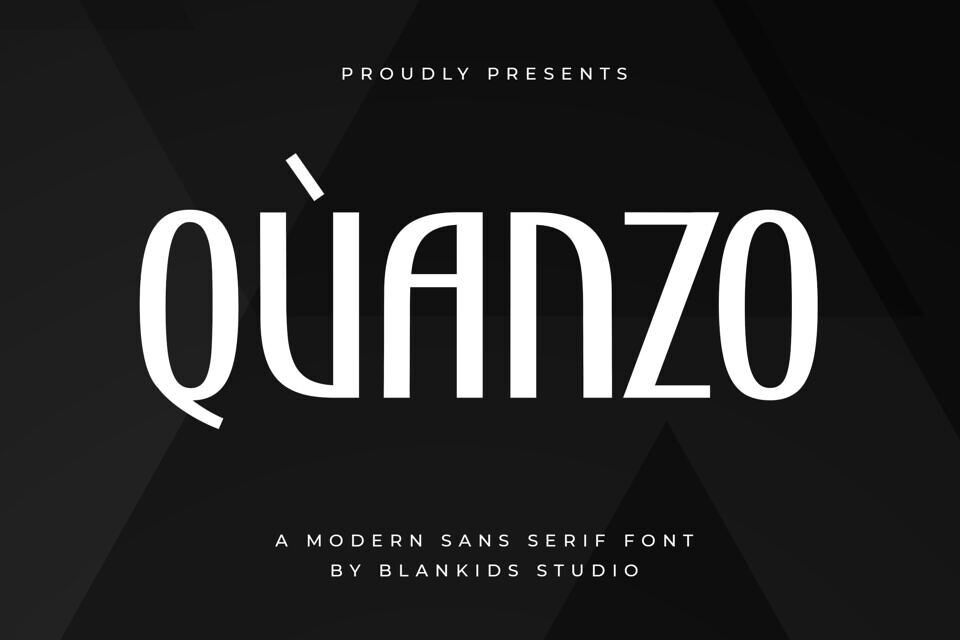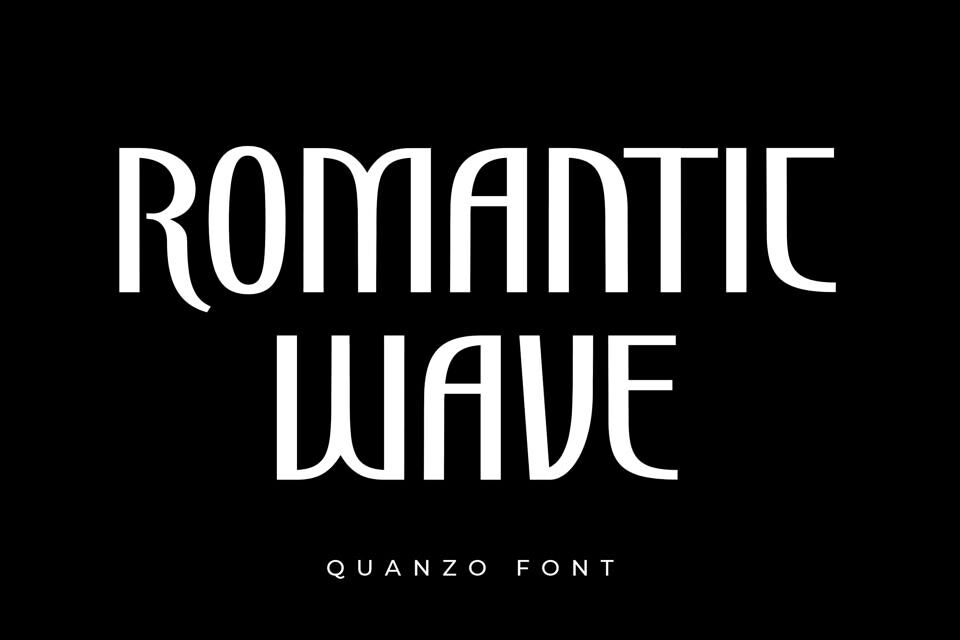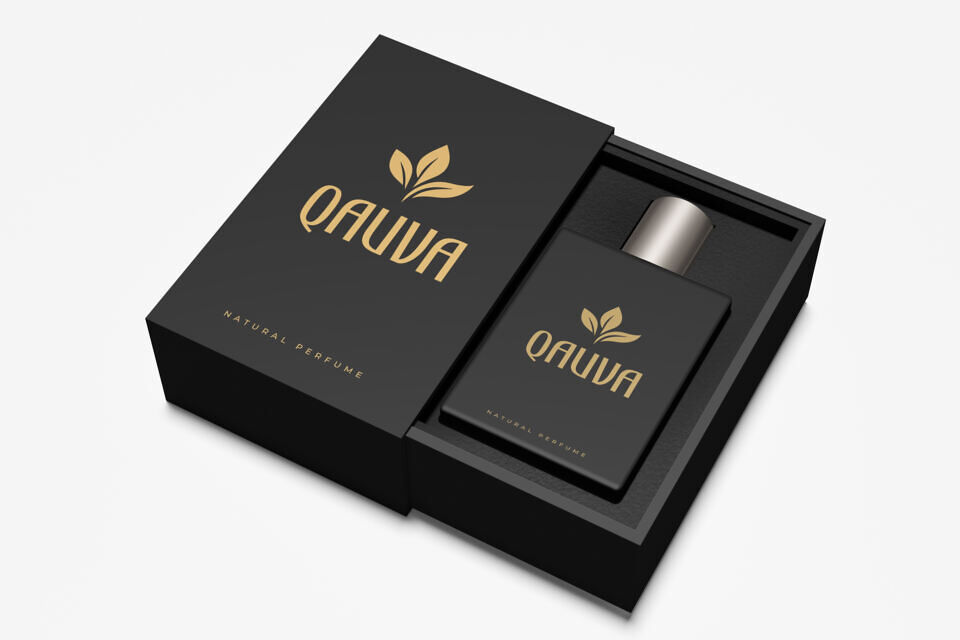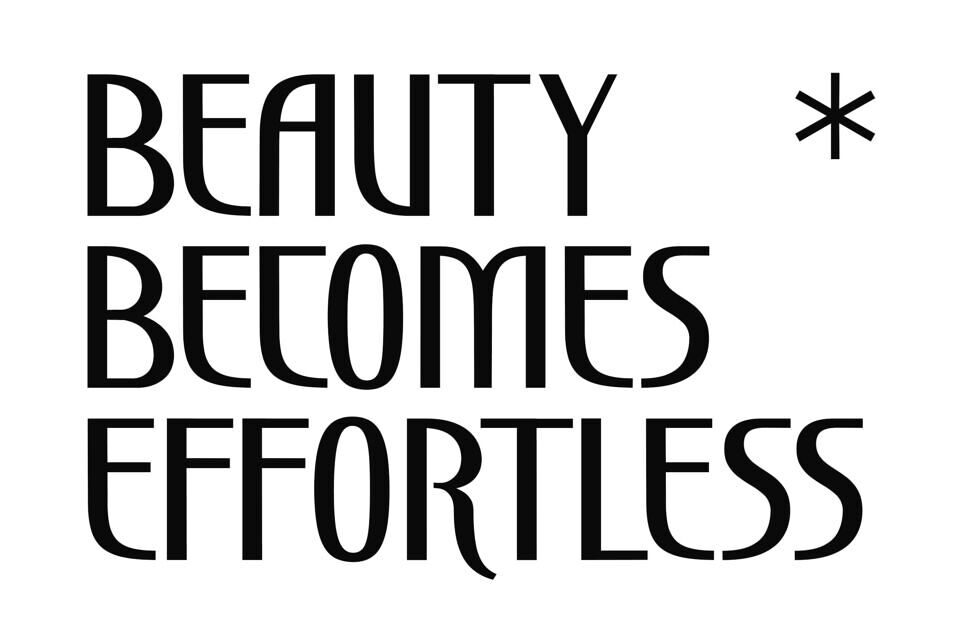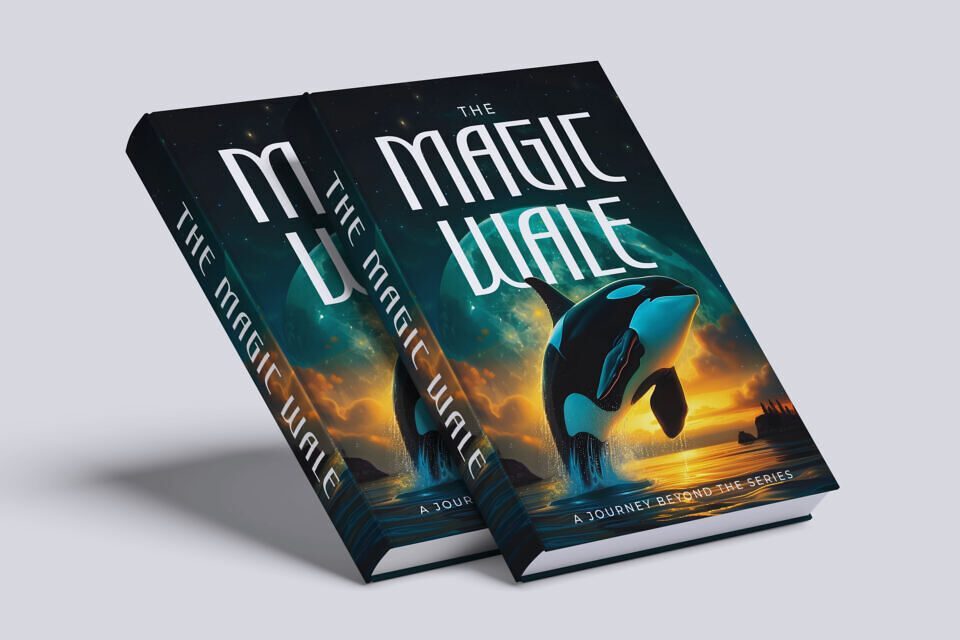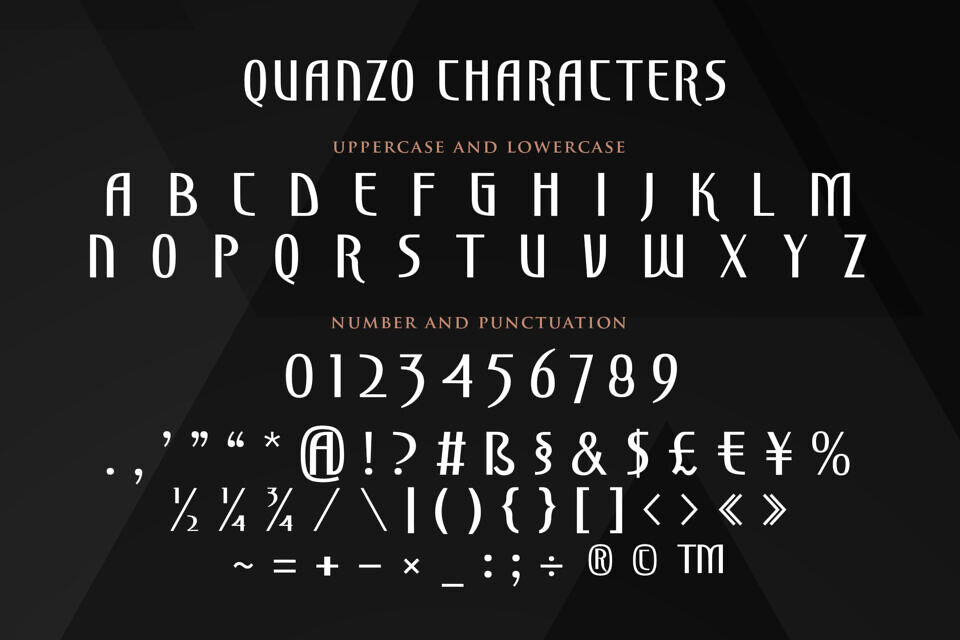
Quanzo is a Modern Sans Serif Font made for any professional project branding, such as logotype, watermarks, poster, branding, promotions, product packaging, etc. Every letter has a modern elegant style design.
Quanzo font includes a full set of modern elegant uppercase and lowercase letters, numerals and punctuation. This font has a modern elegant style.